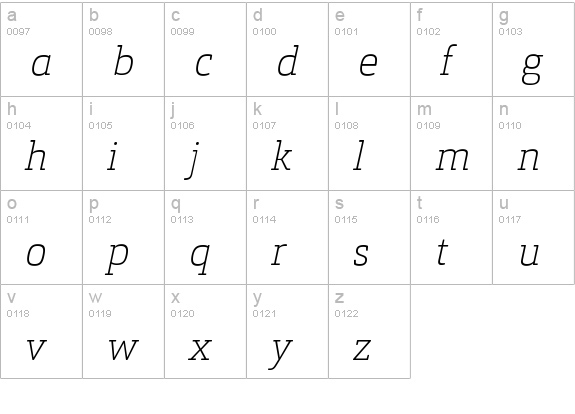
Orgon Slab Thin Italic Font Details
Orgon Slab Thin Italic is a delicate, low-contrast, italic variant in the Orgon typeface family \xE2\x80\x94 well suited to fashion editorial, minimal branding, and high-contrast display.
Orgon Slab Thin Italic is a sleek and modern typeface that exudes elegance and sophistication. Its thin, italicized style adds a touch of flair and creativity to any design project. The font features clean lines and subtle curves, making it perfect for a wide range of applications, from branding to editorial design. What sets Orgon Slab Thin Italic apart is not just its aesthetic appeal, but also the fact that it is available for free download at FontsMarket.com. This means that you can easily access and use this stunning font in your projects without any cost. Whether you're working on a website, poster, or brochure, Orgon Slab Thin Italic is sure to make a stylish statement and elevate your design to the next level. Download it now and unleash your creativity!